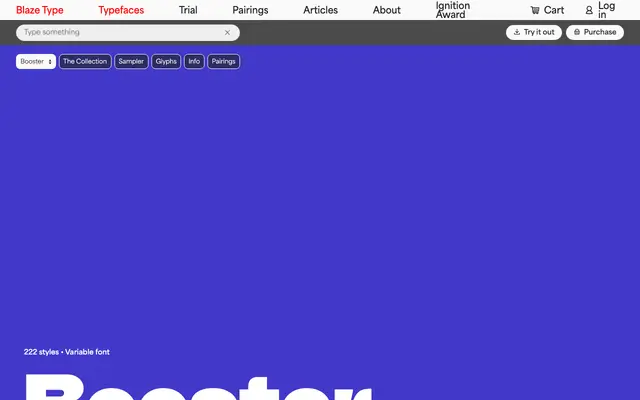
Booster
A 222-style variable type system from Blaze Type, comprising eight stylistically distinct sub-families built on a shared geometric skeleton across three widths and nine weights.
The collection runs from a clean geometric sans through inktrap, rounded, soft, polygonal, stencil, pixel and text variants, each available in Narrow, Compact and Normal widths with nine weights from Thin to Black. Booster Sans and Booster Text include italics throughout, while the decorative sub-families operate upright only. The scale and internal consistency of the system make it well suited to brand identities that require both workhorse text and expressive display voices from a single typeface purchase.
Booster is a large geometric sans-serif system spanning multiple stylistic sub-families including inktrap, rounded, stencil, polygonal and text variants, all sharing a common structural skeleton across variable widths and weights.